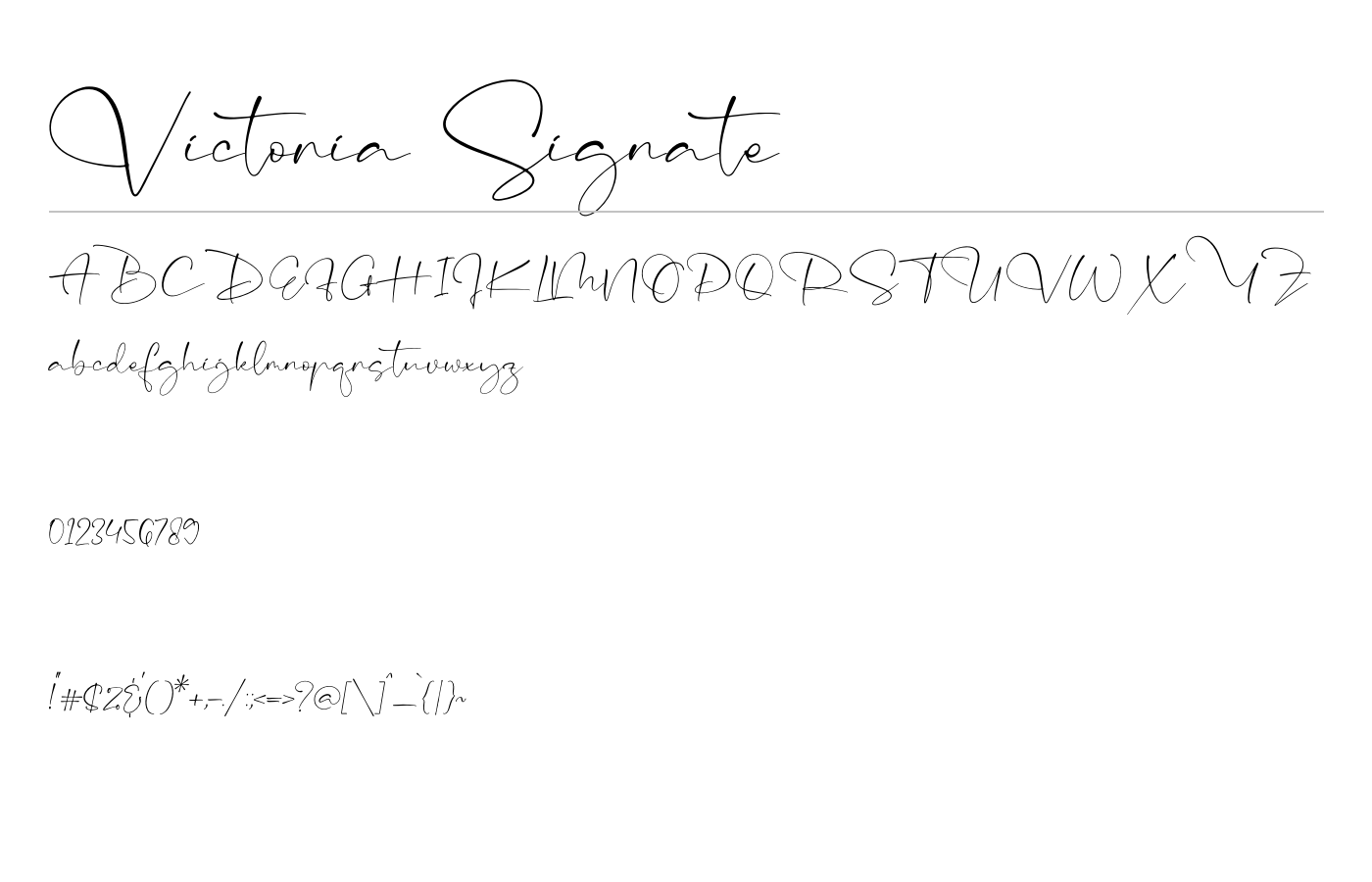
Victoria Signate is a delicate, script-style font that mimics elegant, fluid handwriting with fine, airy strokes and subtle variations in line thickness. Its slender, graceful letterforms and long, sweeping connections give it a sophisticated yet personal feel, ideal for branding, invitations, and any design seeking a refined, artistic touch. This font works beautifully where a stylish, handwritten aesthetic is desired to add warmth and elegance.
Victoria Signate Font
About Victoria Signate Font